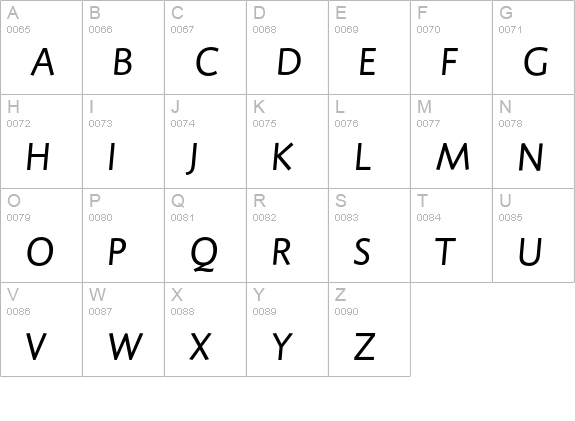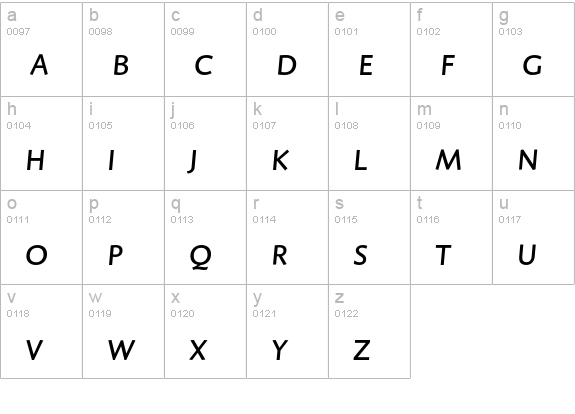
DTLCaspariTCaps-Italic Font Details
DTLCaspariTCaps-Italic is a distinctive, italic variant in the DTLCaspariTCaps typeface family \xE2\x80\x94 well suited to design and typography projects.
Introducing DTLCaspariTCaps-Italic font - a sleek and stylish typeface that exudes elegance and sophistication. This italicized version of DTLCaspariTCaps showcases a unique blend of traditional and modern design elements, making it perfect for adding a touch of flair to your projects. The delicate curves and graceful strokes of this font create a sense of refined beauty, making it ideal for use in branding, invitations, and other creative endeavors. And the best part? DTLCaspariTCaps-Italic font is available for free download at FontsMarket.com, allowing you to elevate your designs without breaking the bank. Don't miss out on the opportunity to add this stunning font to your collection and bring a touch of luxury to your projects. Download DTLCaspariTCaps-Italic today and let your creativity soar!